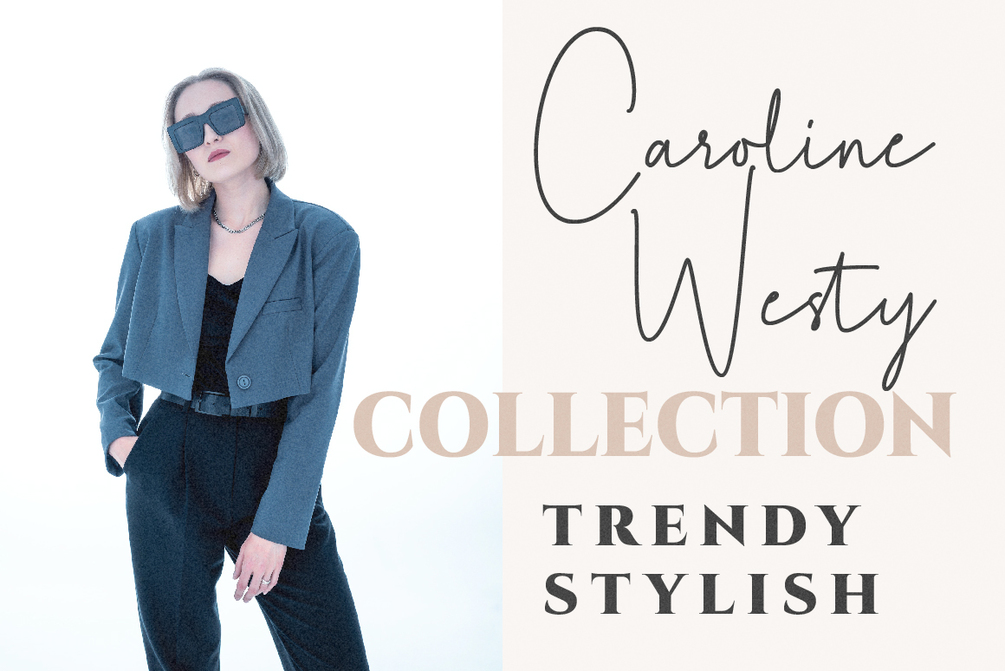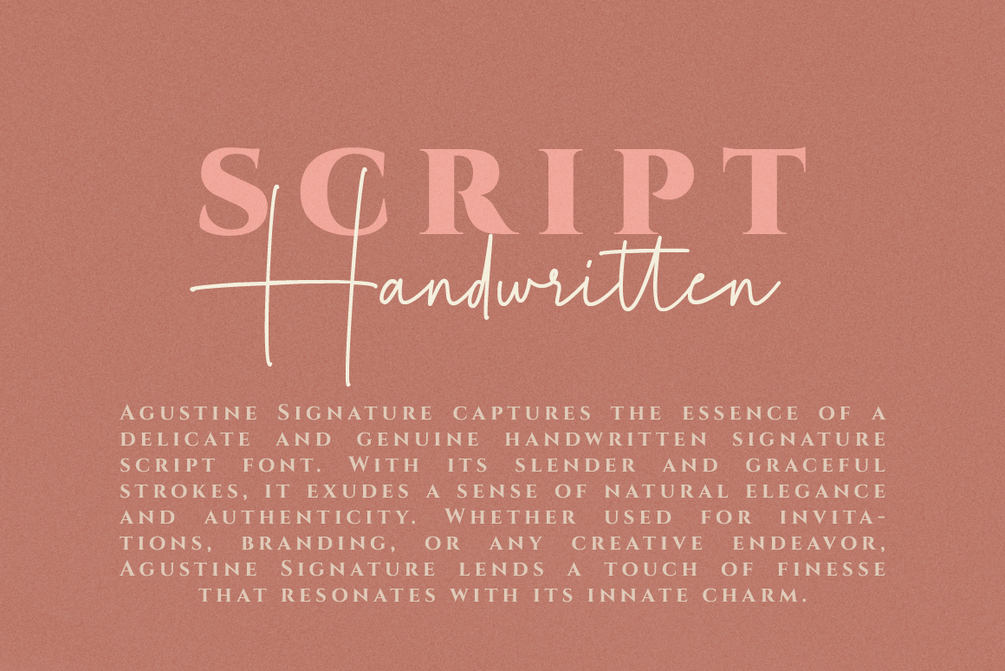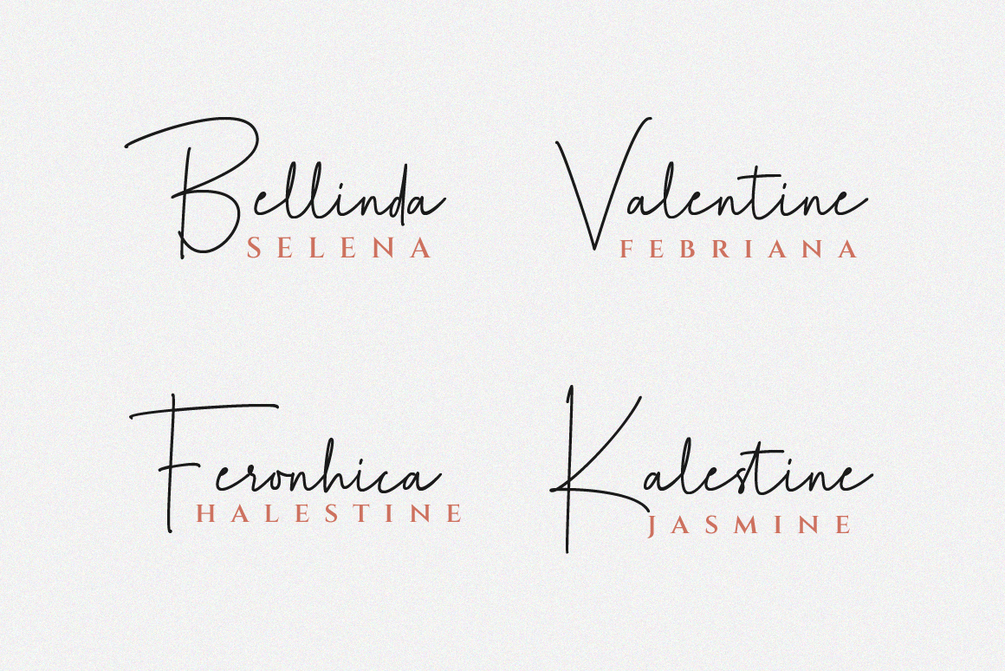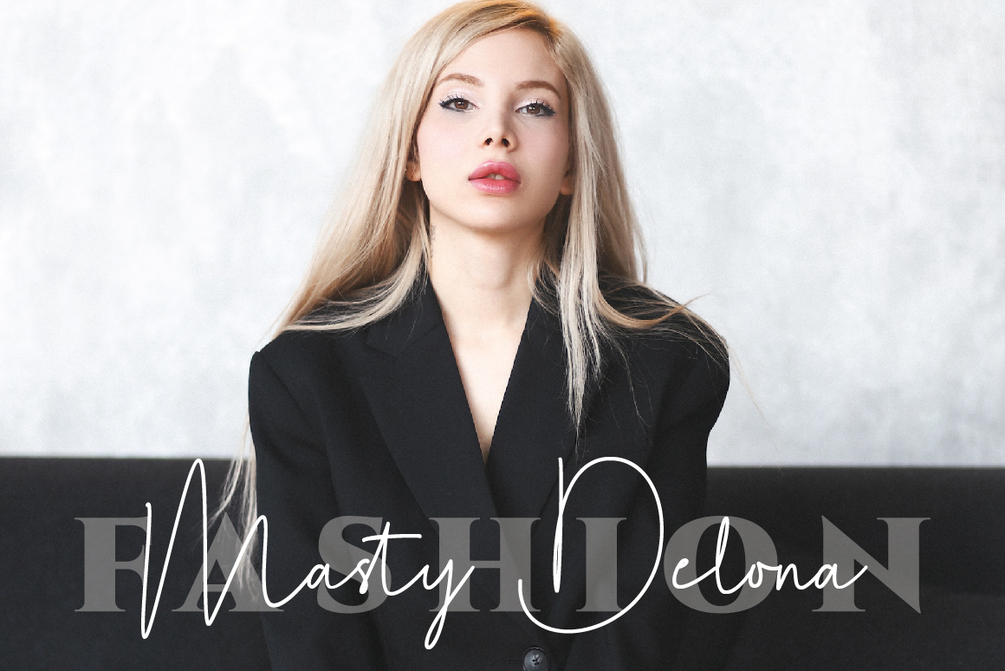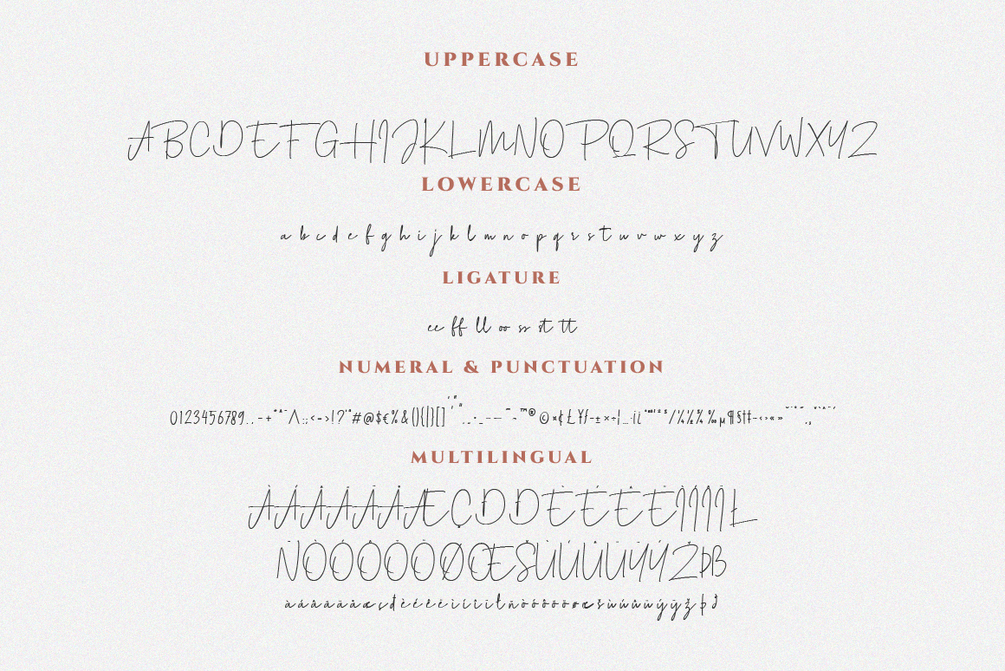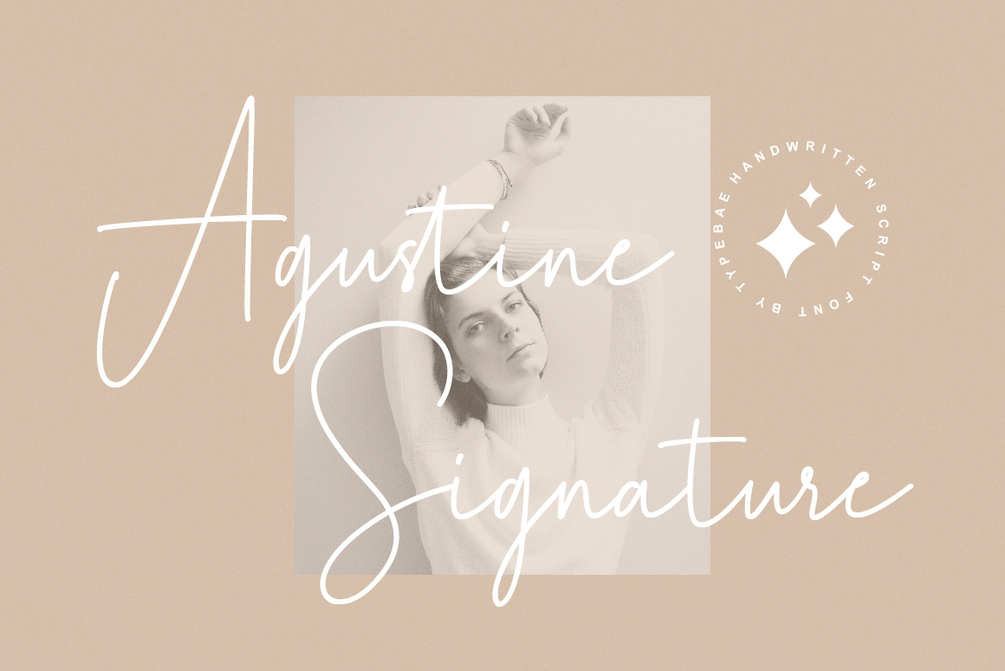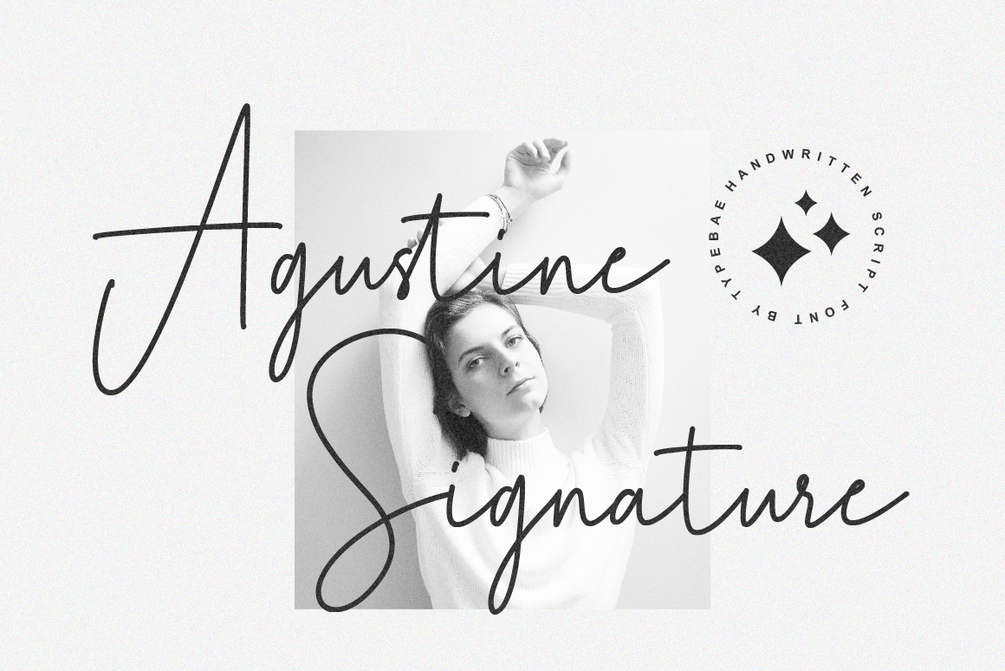
Agustine Signature
Agustine Signature captures the essence of a delicate and genuine handwritten signature script font. With its slender and graceful strokes, it exudes a sense of natural elegance and authenticity. Whether used for invitations, branding, or any creative endeavor.
* Standard alphabet and punctuation
* Ligatures
Multilingual Support: Afrikaans, Basque, Breton, Catalan, Danish, Dutch, English, Finnish, French, Gaelic (Irish, Scots), German, Icelandic, Indonesian, Irish, Italian, Norwegian, Portuguese, Saami (Southern), Spanish, Swahili, Swedish.